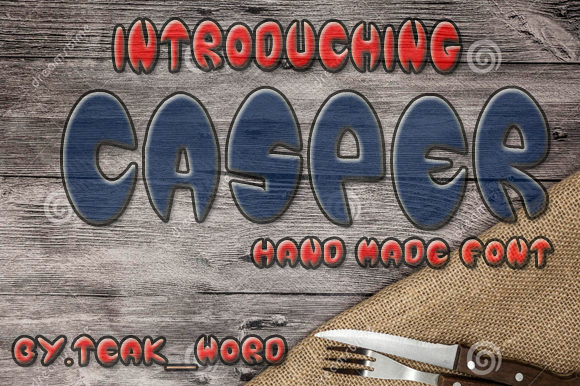
The Designer’s Delight: Casper Font
I’ll never forget the time I was working on a project for a children’s party invitation. I had the design all laid out, but something was missing – the perfect font. I scrolled through page after page of Google Fonts, but nothing seemed quite right. That was until I stumbled upon Casper, a scary good display font with a cartoonish vibe. It was love at first sight! In this article, I’ll share my experience with Casper, its features, and how to make the most of it in your designs.
An Honest Review of Casper Font
What I Love About Casper ✨
• Unique and quirky design that’s perfect for projects that need a playful touch 🎉
• Excellent legibility, even at smaller sizes, making it versatile for various applications 📚
• Supports multiple languages, which is a huge plus for global design projects 🌎
• OpenType features, including stylistic alternates and glyphs, offer endless creative possibilities 🌈
• May not be suitable for very formal or professional projects due to its playful nature ⚠️
• Some users might find the font a bit too bold or overpowering for certain designs 🤯
The Story Behind Casper Font
Casper was designed with the intention of bringing a playful, spooky vibe to the world of typography. Inspired by classic cartoons and Halloween decorations, the font’s creator aimed to craft a unique display font that would stand out in any design project. The result is a font that’s both scary good and versatile, suitable for a wide range of creative applications.
Does Casper Font support OpenType features? Yes, Casper Font supports OpenType features, including stylistic alternates and glyphs, allowing for advanced typographic control.
In conclusion, Casper Font is a fantastic addition to any designer’s toolkit, offering a unique blend of playfulness and versatility. Whether you’re working on a children’s party invitation, a craft project, or a professional design, Casper is sure to bring a touch of magic to your creations. So, don’t hesitate to give it a try and see how it can elevate your designs to the next level! 🚀